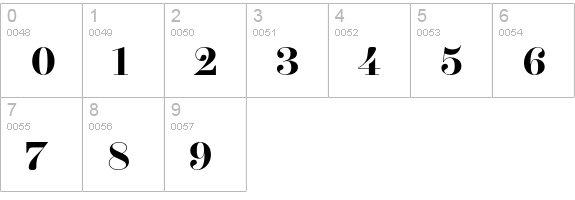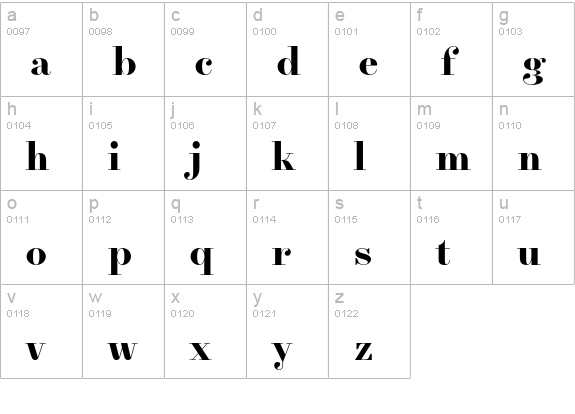
NewParis Headline Bold Font Details
NewParis Headline Bold is a strong, high-contrast variant in the NewParis typeface family \xE2\x80\x94 well suited to headlines, attention-grabbing titles, and strong calls-to-action.